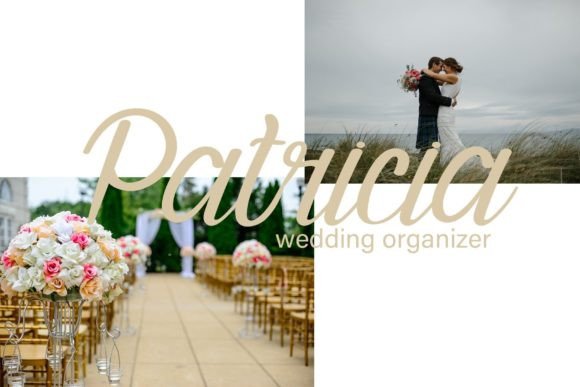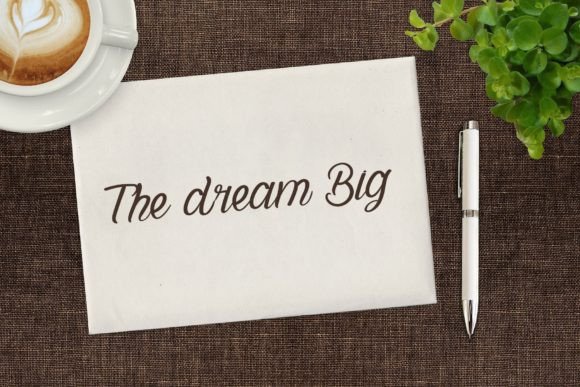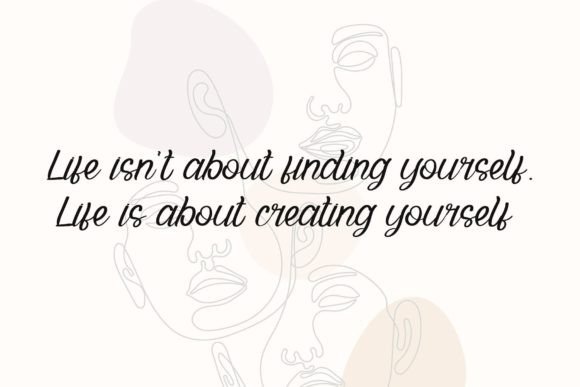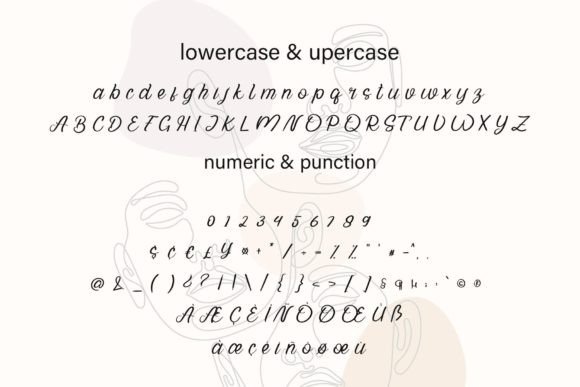
About Outline Font
“Outline” is not just a font; it’s a romantic and sweet calligraphy script that brings a delightful touch to your creative designs. With characters that appear to dance along the baseline, this font adds a luxurious spark, infusing an extra layer of charm and sophistication to any project you wish to develop.
The romantic and sweet nature of “Outline” makes it a perfect choice for a variety of creative endeavors. Whether you’re working on wedding invitations, greeting cards, or any other project that requires a touch of elegance, this font enhances the overall aesthetic with its graceful and beautifully designed characters.
The calligraphy script of “Outline” adds a sense of romance and sophistication to your designs. Its flowing and expressive strokes create a visually captivating appearance, making it well-suited for projects that aim to evoke emotions and convey a sense of luxury.
The characters that seem to dance along the baseline contribute to the font’s dynamic and lively quality. This feature adds movement and energy to the text, making “Outline” particularly suitable for projects where you want to create a visually engaging and charming atmosphere.
“Outline” has the ability to add a luxurious spark to any creative design or project. Whether applied to branding, headlines, or any other visual communication, this font stands out as a stylish and captivating choice that elevates the overall impact of your work.
In summary, “Outline” is more than just a font; it’s a romantic and sweet calligraphy script that brings a luxurious spark to your creative projects. With characters that dance along the baseline, this font adds a touch of charm and sophistication, making it a delightful choice for those seeking elegance and style in their typography.